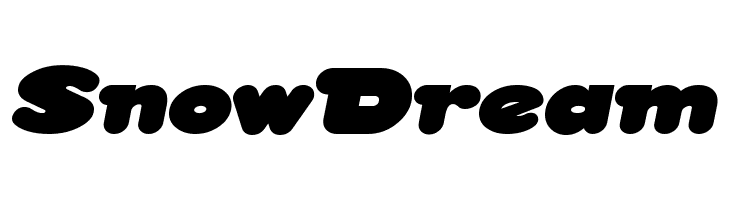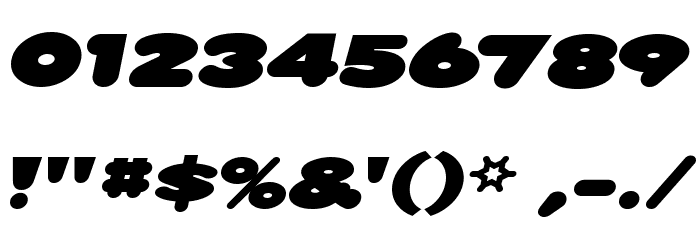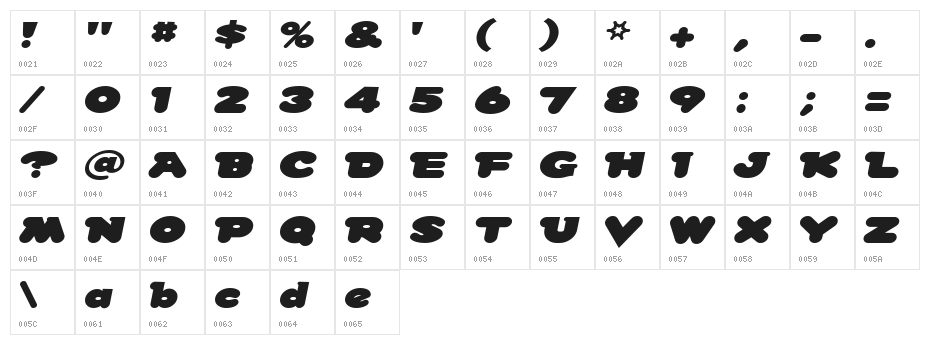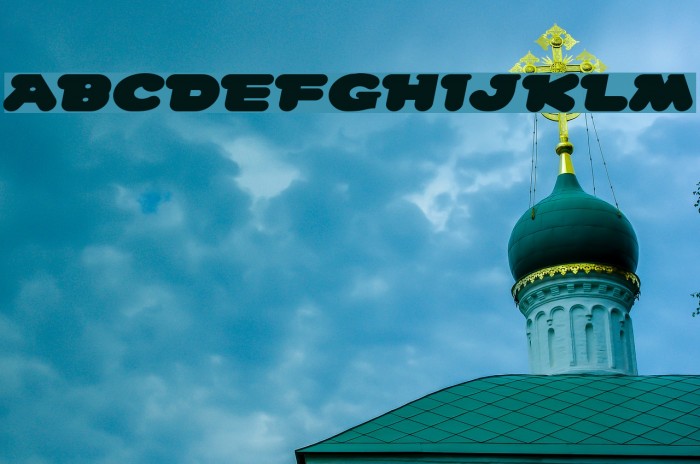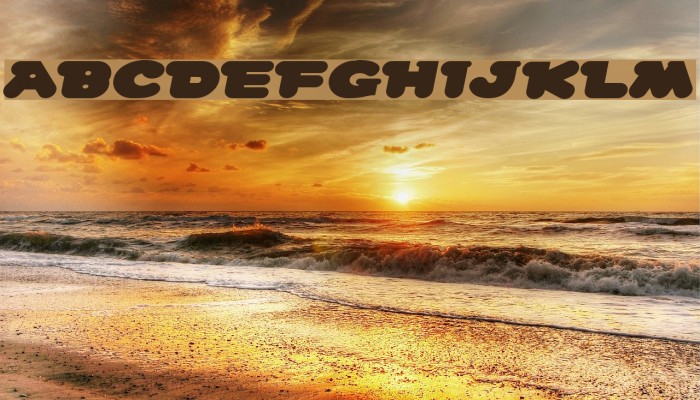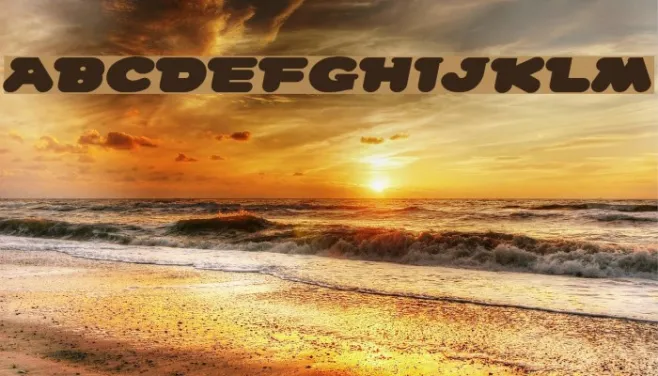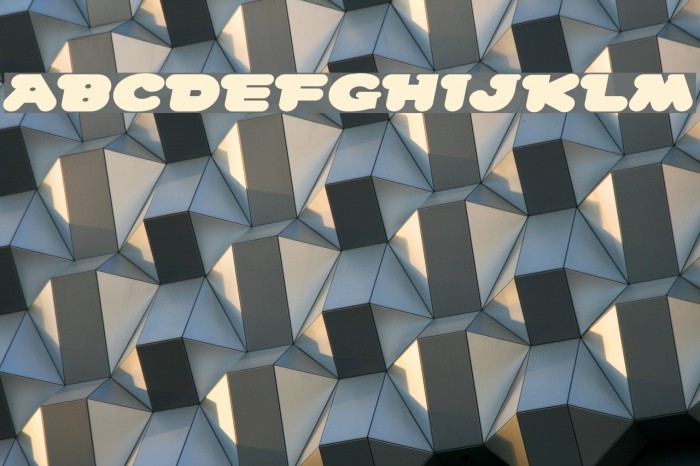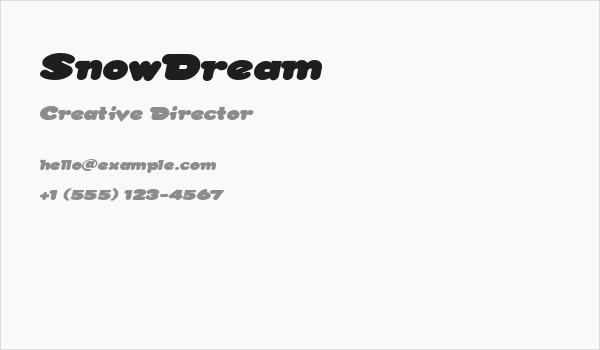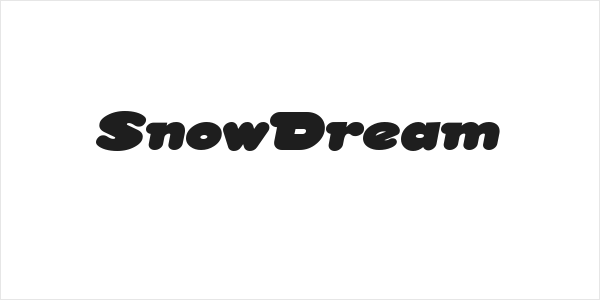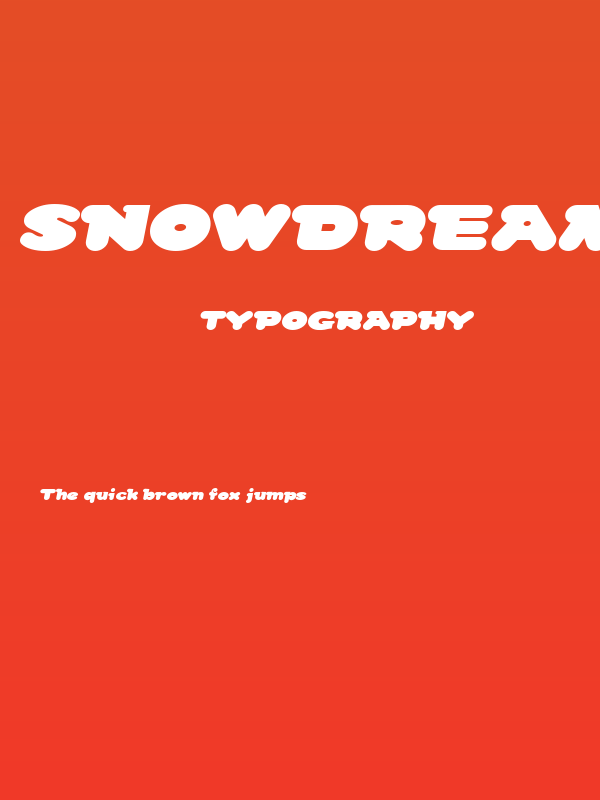
SnowDream Font
SnowDream Description
This playful and bold font features rounded, bubble-like characters that convey a sense of fun and whimsy. The letters are thick and robust, with a smooth, flowing style that adds a touch of softness to the overall appearance. The uppercase and lowercase letters maintain a consistent weight, while the numbers and special characters integrate seamlessly with the alphabet. This font's unique style makes it stand out, offering a friendly and approachable aesthetic that is both modern and engaging.
| Overall Style | Playful, Modern |